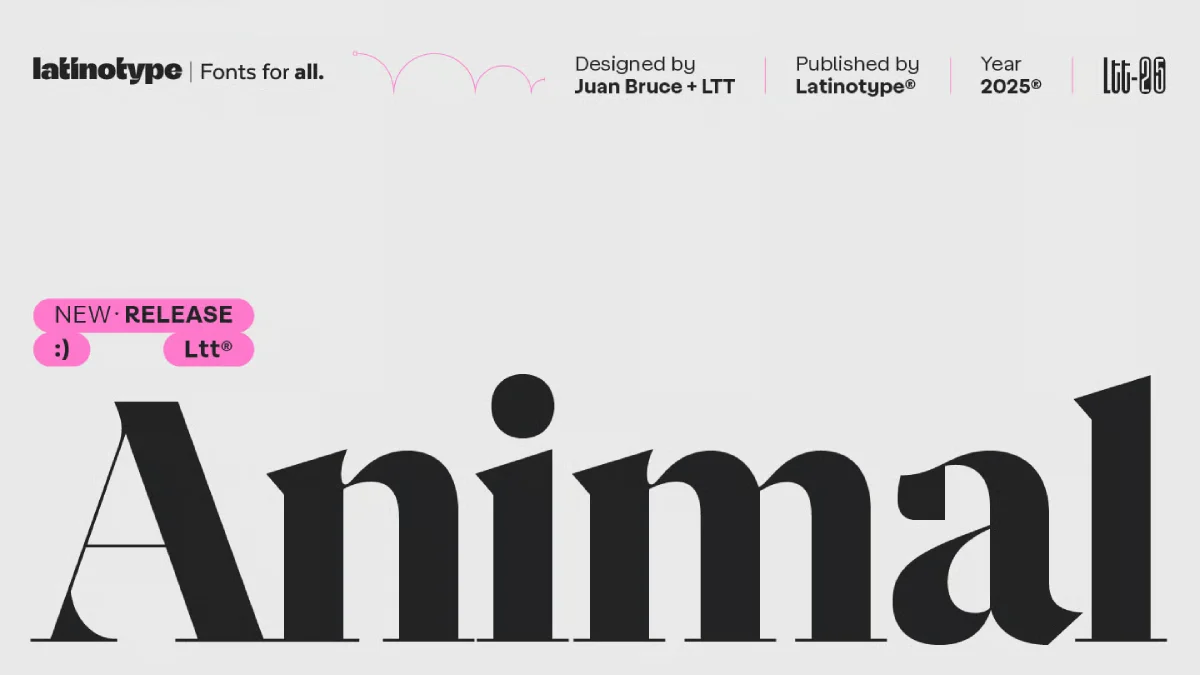
Use the Animal Font Family to add Wild Elegance to Your Designs.
Here comes a typeface that truly roars. One that captures both raw power and refined sophistication. Let’s talk about the Animal font family from the acclaimed Latinotype foundry. This isn’t just another serif on the block. Oh no. The Animal font family is a creature of its own, designed by Juan Bruce to bring an untamed, yet remarkably elegant, edge to your creative projects. It promises designs that don’t just speak, but command attention. So, what makes this particular collection of letters so captivating?
The Animal font family embodies a striking duality. It presents itself as a high-contrast serif, filled with an elegance that feels almost untamed, like observing a majestic panther in its natural habitat – sleek, powerful, and utterly captivating. Its very essence seems inspired by the incredible strength and delicate balance found throughout the animal kingdom. How often do you find a font that feels both ferocious and graceful?
A Closer Look: The Untamed Spirit of the Animal Font Family
When you first encounter this typeface, its sharp details and distinctive forms immediately stand out. These elements work together to forge a look that is undeniably bold, yet simultaneously sophisticated. Imagine using type that doesn’t just sit on the page, but pounces. This is the kind of impact the Animal font family aims for, making it a fantastic choice for designs that absolutely need to grab the viewer’s focus.
The inspiration drawn from the power and equilibrium of wildlife is not just a footnote; it’s woven into its very DNA. Its dynamic structure masterfully combines fluid, almost calligraphic curves with dramatic, high-impact contrasts between thick and thin strokes. Think about the sleek lines of a coursing cheetah or the poised stance of a bird of prey. Furthermore, its unusual terminals – those little end-strokes on letters – and its decisively angular strokes give the Animal font family a presence that is both unique and self-assured. It’s this blend of ferocity and finesse that allows it to create such a memorable impression. What kind of project comes to your mind when you picture these characteristics?
The Creative Minds: Juan Bruce and Latinotype
Behind every great font, there are visionary creators. The Animal font family was skillfully brought to life by designer Juan Bruce. His eye for detail and understanding of typographic personality shine through in every curve and serif of this collection. Bruce’s work often showcases a deep appreciation for expressive letterforms, and this typeface is a testament to this passion.
This remarkable typeface was released by Latinotype, a foundry renowned for its high-quality, contemporary type designs. Latinotype has consistently provided designers with fresh and versatile tools, and the Animal font family certainly continues this tradition. Their catalogue is a treasure trove for anyone looking for fonts that are both innovative and highly usable. The collaboration between a designer like Juan Bruce and a foundry like Latinotype often results in something special, doesn’t it? In this case, it’s a typeface with a truly distinctive voice.
A Sophisticated Expression: The Versatile Structure of the Animal Font Family
One of the most compelling aspects of the Animal font family is its remarkable versatility. It’s not a one-trick pony. Instead, it’s a comprehensive system designed to adapt to a wide array of design challenges. How so? It comes in four distinct widths: Wide, Normal, Condensed, and Narrow. Each of these widths, then, is available in three powerful weights: Regular, Bold, and Black.
This structured approach means you have a full palette of stylistic options at your fingertips. Need a headline that spreads confidently across a page? The Wide Black variant of the Animal font family might be perfect. Working with limited space but still need impact? The Condensed Bold could be your hero. This flexibility allows for nuanced typographic hierarchy and consistent branding across various applications. This expansive system makes this typeface an exceptionally expressive choice for designers. Have you ever felt limited by a font family with too few options? The Animal font family seeks to solve that.
Where the Wild Things Roam: Perfect Uses for the Typefaces
So, where does the Animal font family truly shine? Its unique blend of characteristics makes it an outstanding contender for a variety of impactful design projects. Let’s explore some ideal applications:
- Branding: If you’re aiming to create a brand identity that is memorable, distinctive, and exudes confidence, the Animal font family offers an immediate advantage. Its unique forms can help a logo or brand name stand out from the crowd, conveying both sophistication and a touch of daring.
- Posters: When your message needs to make a statement from across the room, the bold presence of the Animal font family is invaluable. Its sharp details and strong contrasts ensure high visibility and a captivating aesthetic for event posters, announcements, or art prints.
- Fashion Campaigns: The fashion world often seeks a blend of elegance, edginess, and aspiration. The Animal font family delivers on all fronts, providing a sophisticated yet bold typographic voice for high-end fashion layouts, lookbooks, and advertising. Can you picture its sharp serifs gracing a luxury brand’s campaign?
The Animal font family by Juan Bruce and Latinotype is an invitation to explore a more expressive and instinctual side of typography. Its sharp details, dramatic contrasts, and versatile structure provide a rich toolkit for designers looking to create work that is both beautiful and brave. It truly feels like typography with an untamed soul, ready to bring your most audacious design visions to life. Why not see how the Animal font family can transform your next project?